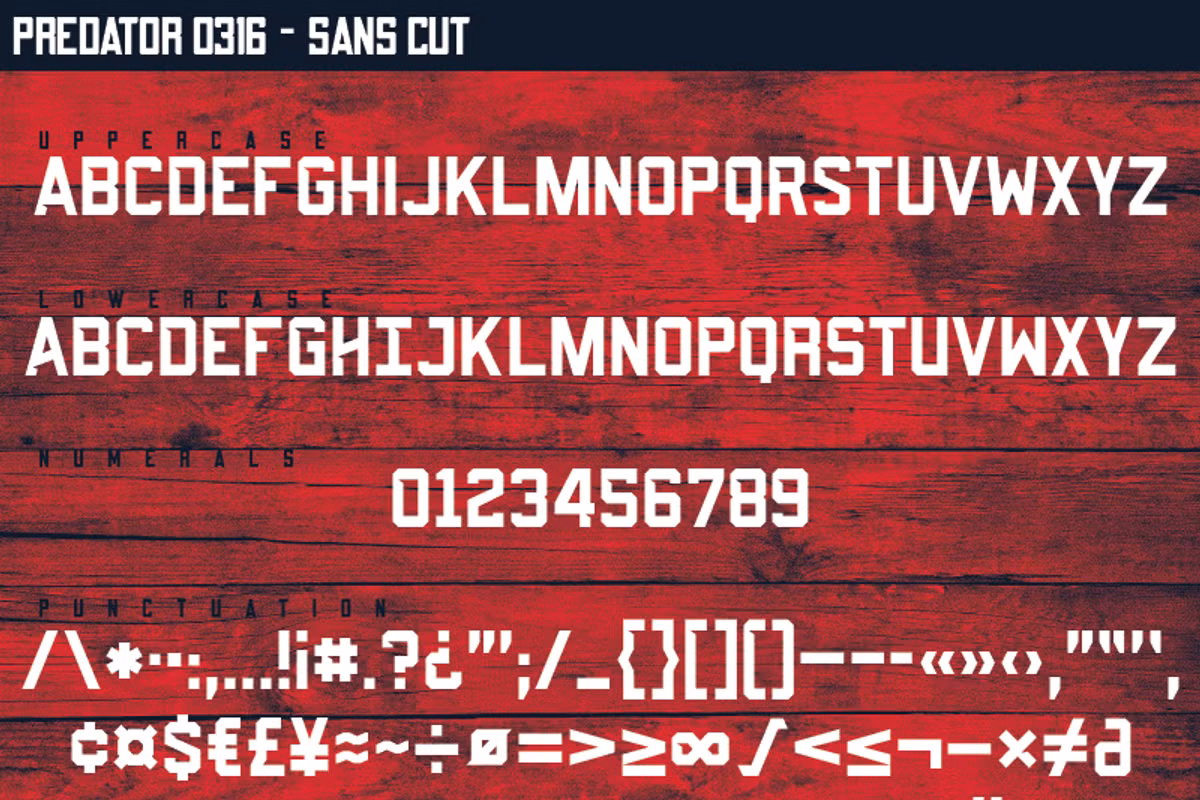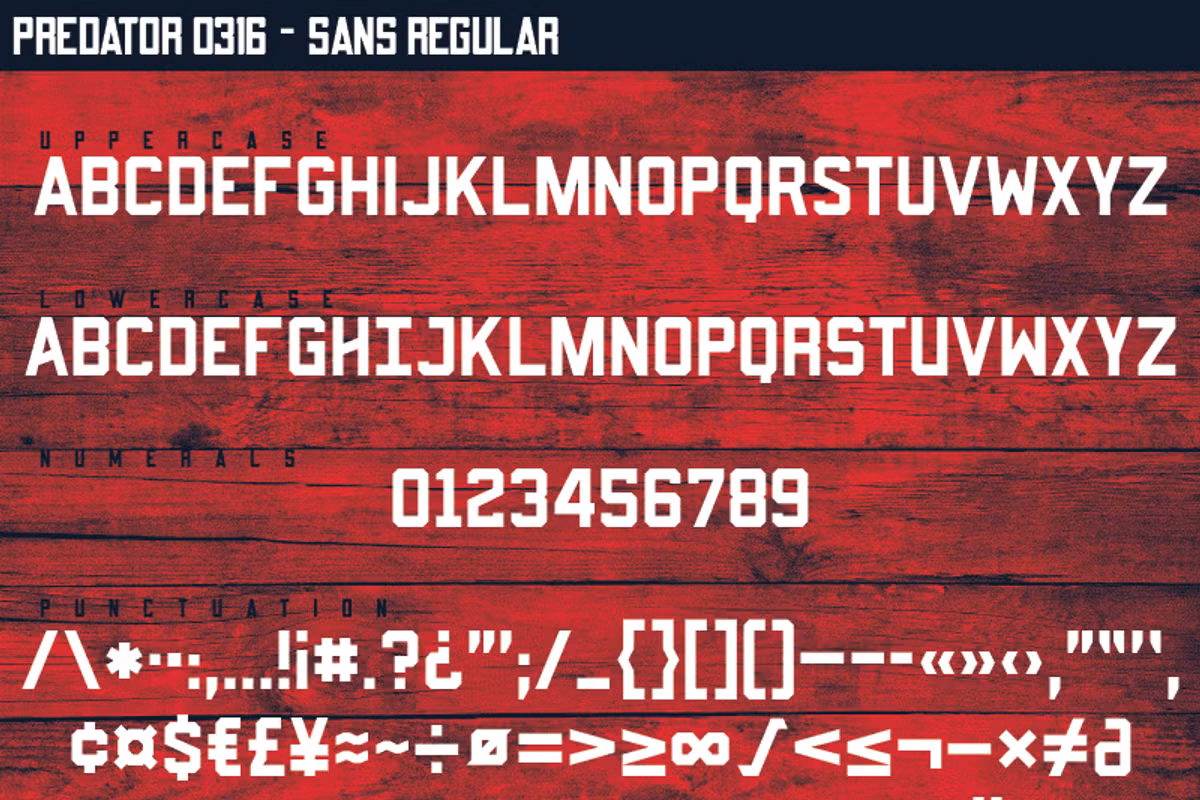
Predator 0316: Versatile Bold Typeface for Impactful Design
Meet Predator 0316, a typeface that combines speed and strength in a unique way. It’s perfect for projects that need a sleek and bold look. With nine different versions, including Sans and Slab styles, Predator 0316 is great for many uses. Its athletic and intense style makes it ideal for creating designs that grab attention. Whether you’re working on a project that needs a strong, modern look or something a bit more elegant, Predator 0316 has the versatility to deliver. Its range of styles means you can use it for everything from bold headlines to more subtle text, all while maintaining a consistent, high-impact aesthetic.
Example of bold typography using Predator 0316
Predator 0316 showcases bold typography.
The design of Predator 0316 is both dynamic and robust, featuring smooth lines that convey a sense of motion and energy. This typeface is categorized into two primary styles: Sans and Slab. The Sans variant is characterized by its clean and modern appearance, while the Slab version introduces a more solid and traditional look with its thick, block-like serifs.
The design of Predator 0316 is carefully thought out to grab attention without being too much. It’s a mix of being bold and sleek, which makes it easy for designers to use in different areas, like company branding or posters for sports teams. This flexibility means it can fit in with the tone and feel of any project, making it a great choice for a wide range of uses. Whether it’s a serious business logo or a fun poster, Predator 0316 can adapt to the context and look great. Its unique style is what makes it stand out, and designers can use it to create something that really catches the eye.
The trendy cut version of Predator 0316 has a special feature – a small notch that makes the typeface look beveled, giving it more depth. This design element really makes a difference, creating a strong visual effect that grabs your attention and makes your text stand out. It’s a great way to add some extra flair to your words and make them jump off the page.
Close-up of a beveled typography design
Beveled design feature enhances visual appeal.
The Predator 0316 font is really versatile and can be used in many different ways. It has special characters that can be used to make your text look unique and personalized. For example, the lowercase letters have alternate glyphs that can be used to add some extra flair to your writing. This font is also great for projects that need to reach people in Eastern Europe, because it includes all the necessary characters. Overall, Predator 0316 is a practical choice for anyone who wants to create text that stands out and can be read by people all over the world.
Having different font weights, like Light, SemiLight, and Bold, gives you a lot of flexibility when designing. This means you can create a clear hierarchy and draw attention to certain parts of your text. So, if you want something subtle for the main body of your text, or something that really stands out for headings, Predator 0316 has all the options you need. You can use the lighter weights for the smaller details and the bolder weights for the bigger, more important stuff. This way, you can control how your message comes across and make sure your audience focuses on the right things.
This adaptability in character sets and weights makes Predator 0316 a powerful tool for any designer looking to make their work stand out in a crowded visual landscape.
Display of different font weights available in Predator 0316
Various font weights enhance design flexibility.
Predator 0316 excels in a multitude of applications, making it an essential addition to your design arsenal. Here are some notable use cases:
• Corporate Branding: The clean lines of the Sans variant are ideal for logos, business cards, and corporate presentations, conveying professionalism and modernity.
• Sports Team Promotions: Use the bold Slab version for creating posters, banners, and merchandise that capture the energy of athletic events.
• Advertising Campaigns: The striking aesthetics of the trendy cut version can help your ads stand out, grabbing attention and driving engagement.
When it comes to events like conferences, festivals, or sports, having the right signage is crucial. You want people to be able to read and understand the information, but you also want it to look good. That’s where Predator 0316 comes in – it’s a versatile option that can help you create signs that are both easy to read and visually appealing, making your event stand out.
When you use Predator 0316 in your work, it helps your designs get the message across and makes a big impact on the people who see them. This means you can create things that really stand out and stick in people’s minds. By doing this, you can make sure your audience remembers what you’re trying to say.
Finding the right typeface to complement Predator 0316 can enhance your design even further. Here are some pairing suggestions:
Predator 0316 is a really strong typeface that brings together speed and power, giving designers a great tool to create designs that stand out. It has nine different versions, a wide range of characters, and can be used in many different ways, making it a top pick for anyone who wants to make a big impact with their typography. Whether you’re working on a company’s brand, promoting a sports team, or running an ad campaign, Predator 0316 gives you the flexibility and boldness you need to grab people’s attention. This font is perfect for making a statement and taking your design projects to the next level. With its unique style and versatility, Predator 0316 is a great choice for designers who want to add some excitement to their work. It’s a powerful font that can help you create designs that are both memorable and effective. So, don’t miss out on the chance to elevate your designs with Predator 0316 – it’s a game-changer for anyone looking to make a lasting impression with their typography.